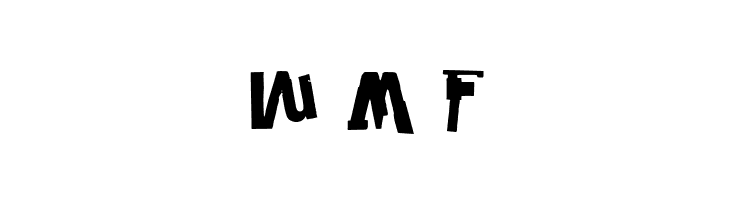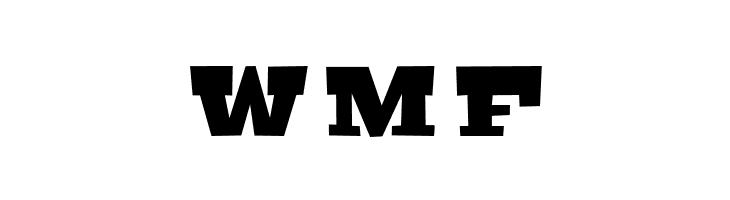
Moby Font
A modern, geometric font with rounded edges and a minimalist design.
Bigfish Black Font
A bold, impactful slab serif font with strong lines and pronounced serifs.
Polaris Font
A modern, geometric font with consistent stroke width and clear readability.
Coraline Font
A classic serif font with whimsical curves and pointed serifs.
Bigfish Font
A bold, slab serif font with strong, thick strokes and vintage charm.
Moby Monospace Font
A modern, monospaced font with rounded edges and consistent stroke weight.
BlendfontsMultikultur Font
A bold blackletter font with sharp, angular lines and a gothic aesthetic.
Hammerhead Black Font
A bold, geometric font with strong angles and a powerful presence.
Moby Bold Font
A bold, rounded font with a modern and playful style.
OrchideeLight Font
A modern, edgy font with sharp, angular strokes and a bold appearance.
Moby regular Font
A modern, geometric font with rounded edges and a minimalist design.
Multikultur Font
A classic blackletter font with ornate, angular designs and a medieval aesthetic.
OrchideeMedium Font
A bold, edgy font with a distressed, hand-drawn appearance.
HydrophiliaIced Font
A pixelated, retro-style font with a blocky, grid-like design.
Flood Icons Font
Playful aquatic-themed icon set with cartoonish marine illustrations.
PiratesStoertebecker Font
A distressed, eclectic font with a cut-out, rebellious style.
BlendfontsMonokultur Font
A bold, blackletter-style font with sharp, angular edges.
Hydrophilia Font
A bold, geometric font with clean lines and a modern aesthetic.
HydrophiliaLiquid Font
A bold, geometric font with angular letterforms and a modern aesthetic.